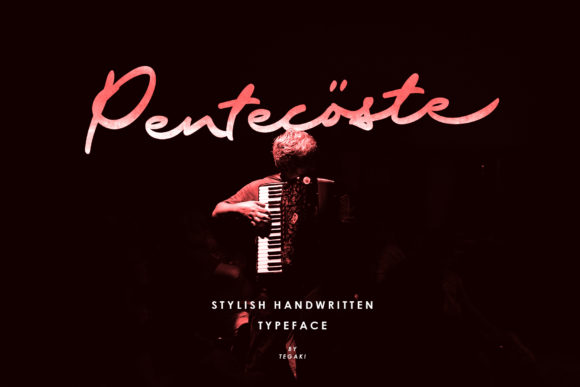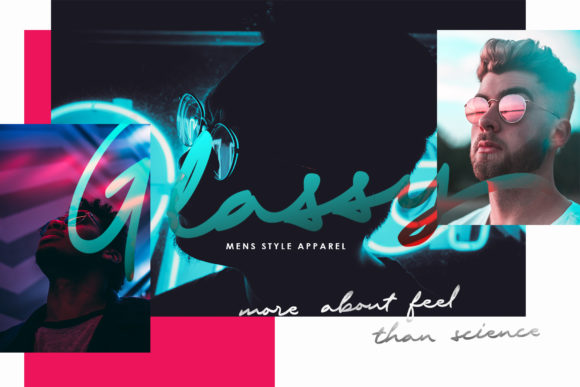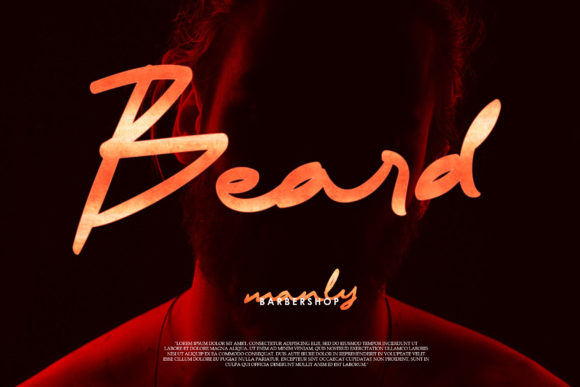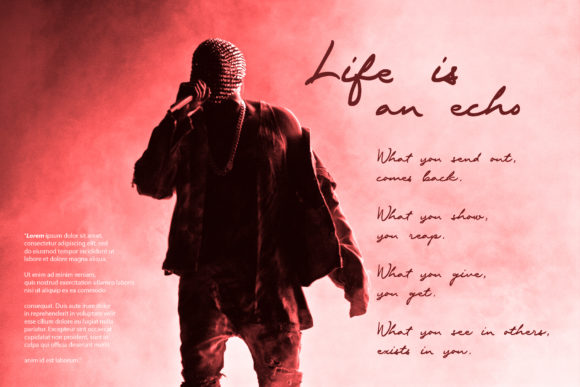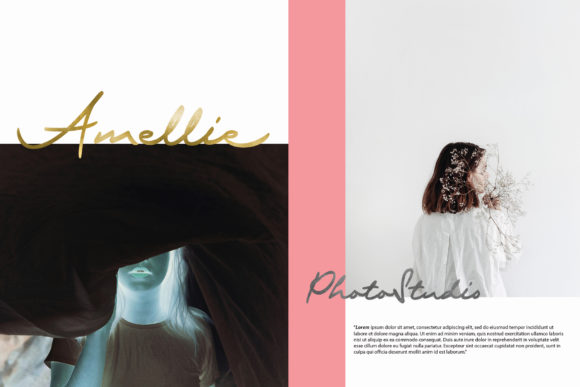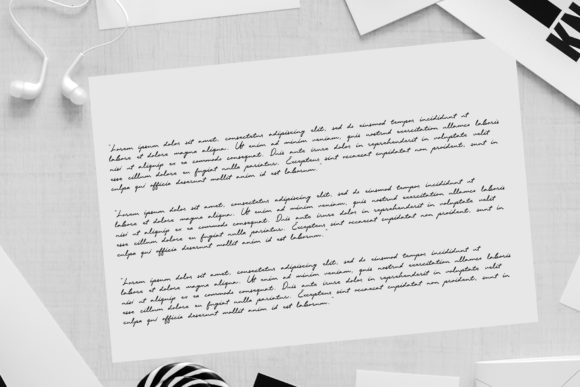
HomeScript FontsPentecoste Font Script Fonts Pentecoste Font FacebookXPinterestWhatsApp Pentecoste Font Poster 2 Pentecoste Font Poster 3 Pentecoste Font Poster 4 Pentecoste Font Poster 5 Pentecoste Font Poster 6 About Pentecoste Font Pentecoste is a stylish and bold handwritten font with a modern feel. Get inspired by this contemporary typeface. DOWNLOAD NOW People also explored Moon Light Font Raw The Mezirane Font Vallencia Font Power Man Font PN Nugatory Font Wedding Monogram Font Santiago BTN Peralta Pro 276 0 TagsPentecoste Font Previous articleSleeping Beauty FontNext articleTwister Script Font LEAVE A REPLY Cancel reply Comment: Please enter your comment! Name:* Please enter your name here Email:* You have entered an incorrect email address! Please enter your email address here Website: Save my name, email, and website in this browser for the next time I comment. Personal Use Free Pretender Personal Use Free Read more about this font Hollow Personal Use Free Read more about this font Market Love Personal Use Free Read more about this font Ardilla Font Personal Use Free Read more about this font BLOG The 10 Best Handwriting Fonts to Add Personality to Your Designs 10 of the Best Handwriting Fonts for Adding Personality to Your Designs There will undoubtedly be no other better choice than handwriting fonts to give... Fonts That Capture the Spirit of New York City 5 Fonts That Will Dominate Design Trends in 2026 Elegant Wedding Invitation Fonts – Handwritten & Script Fonts